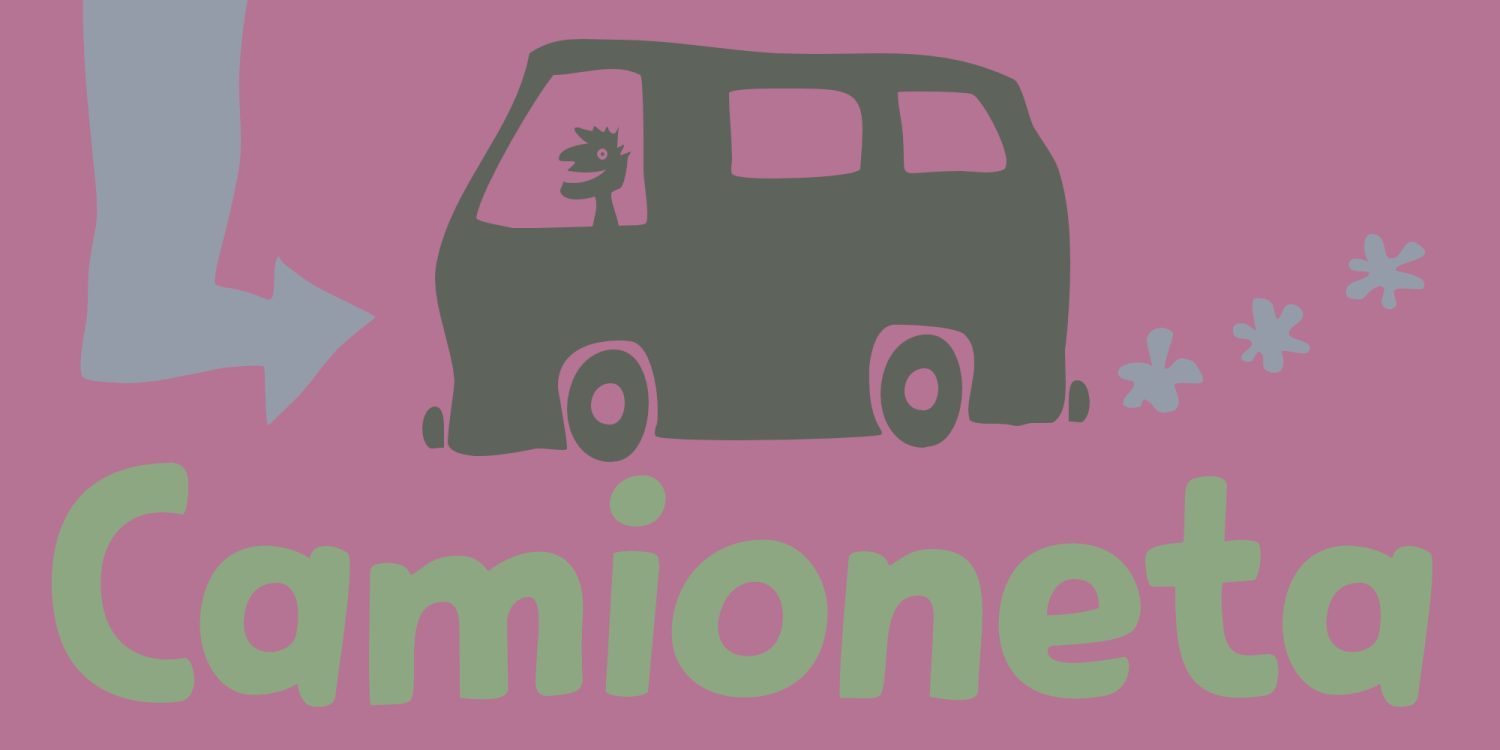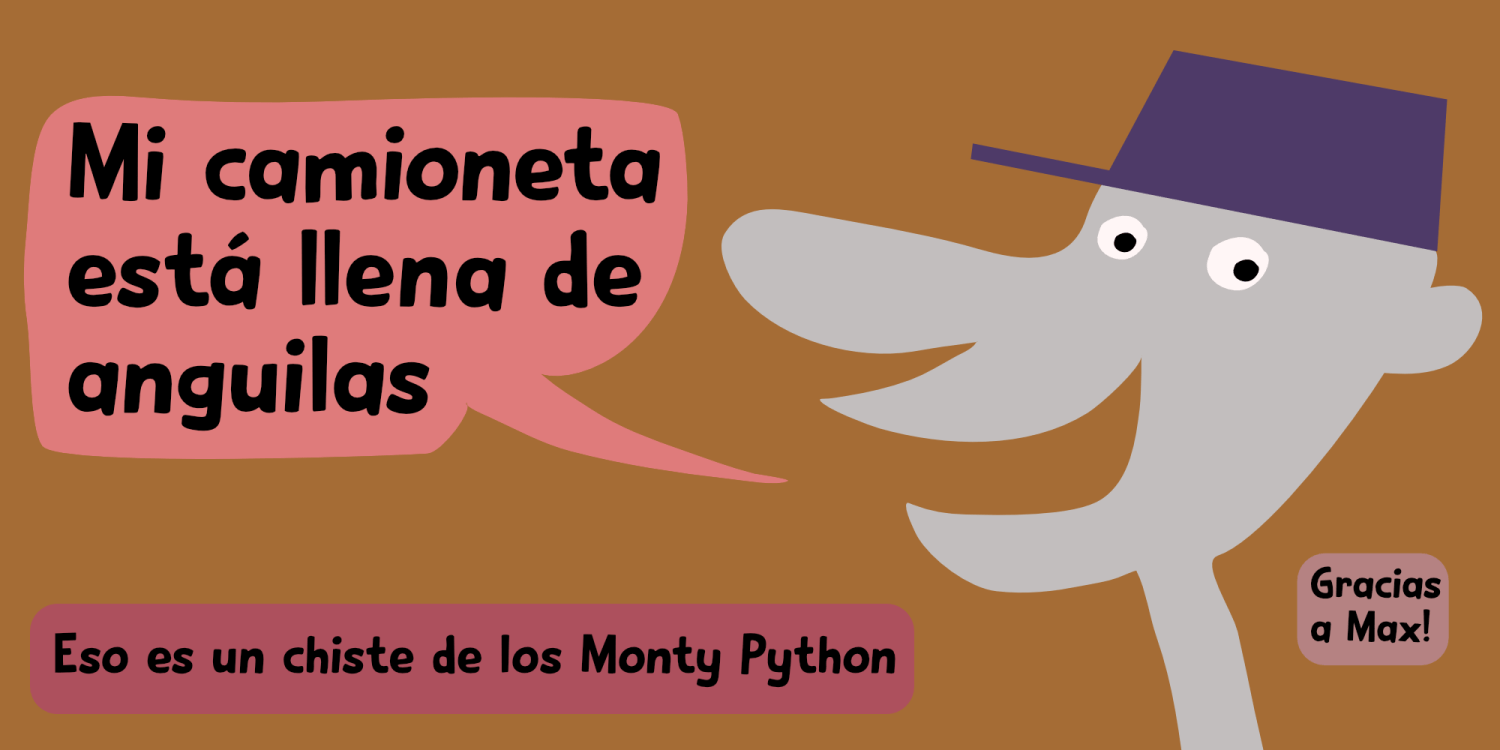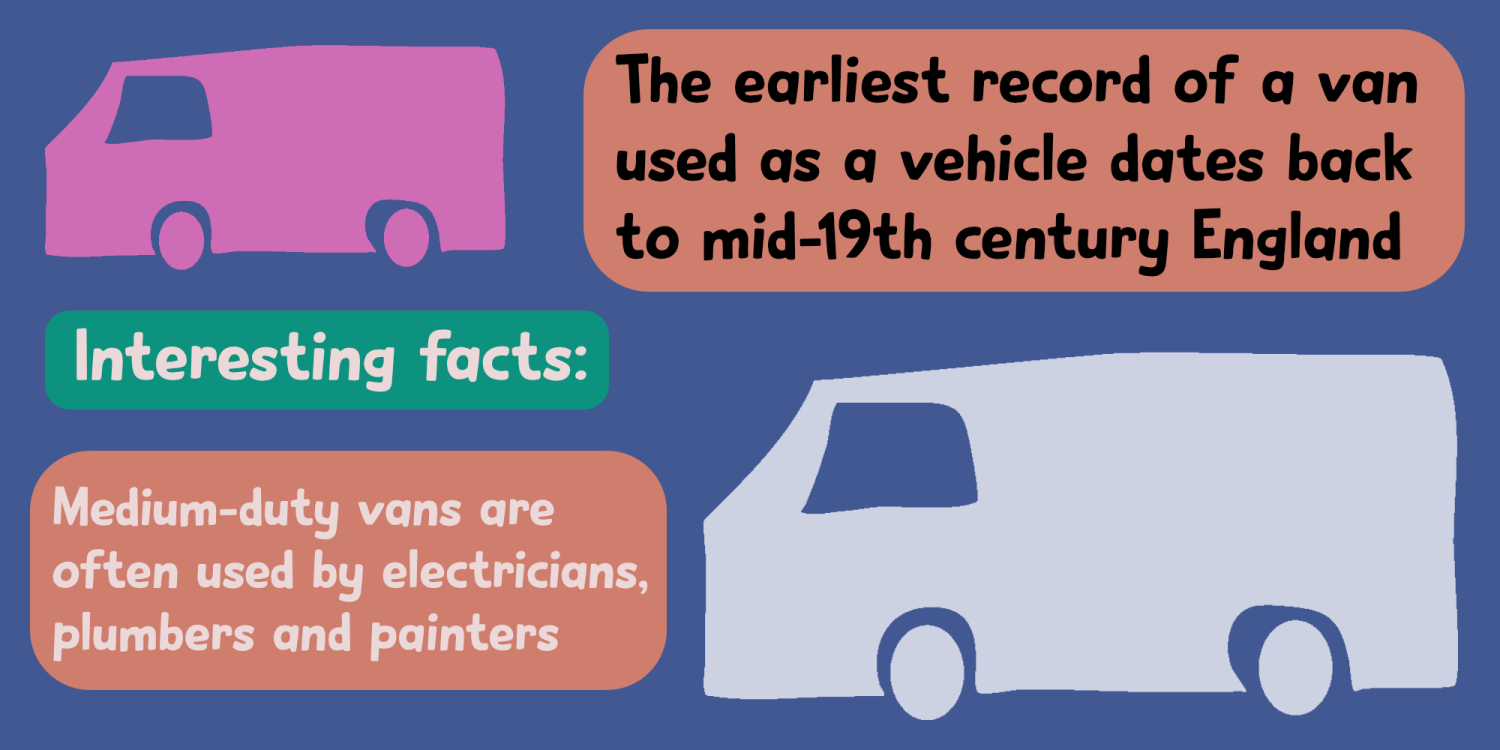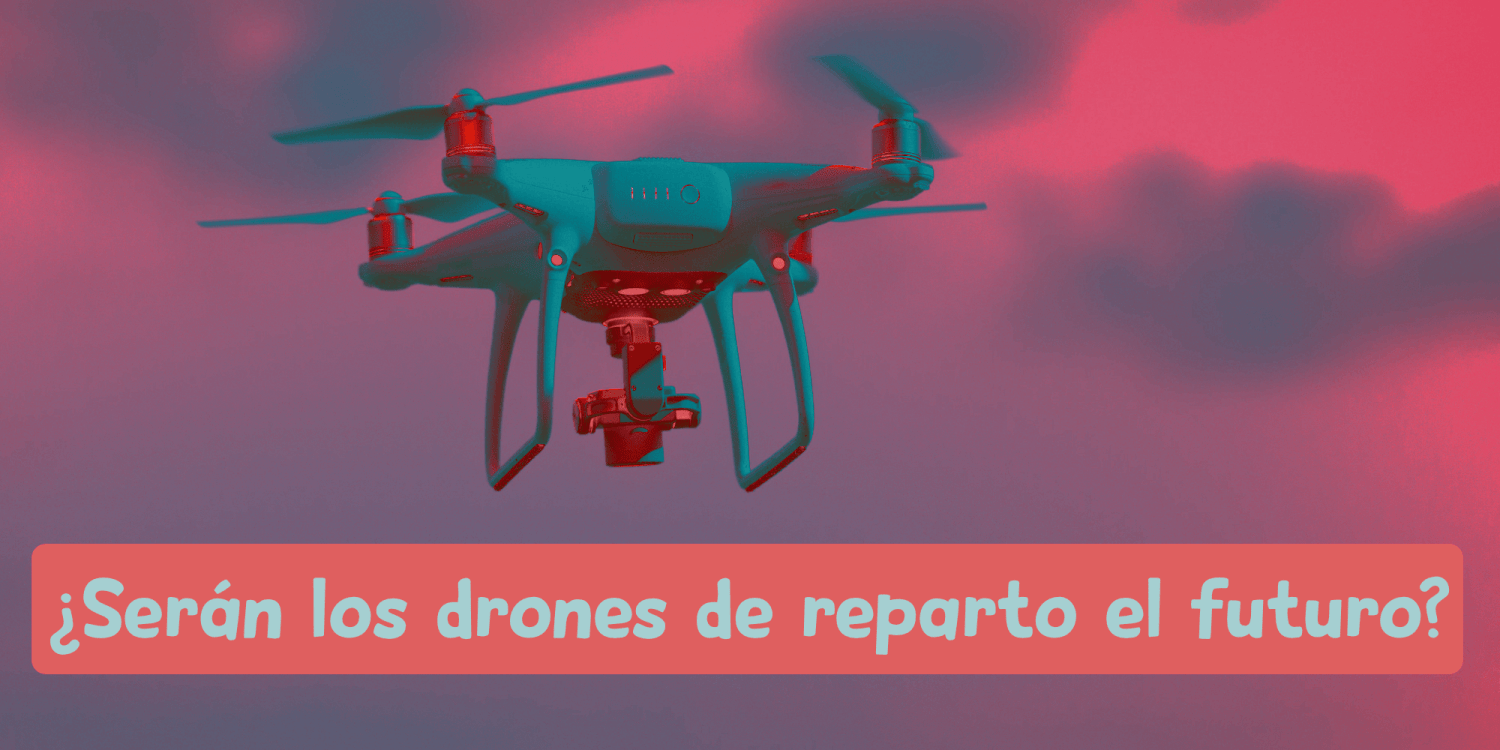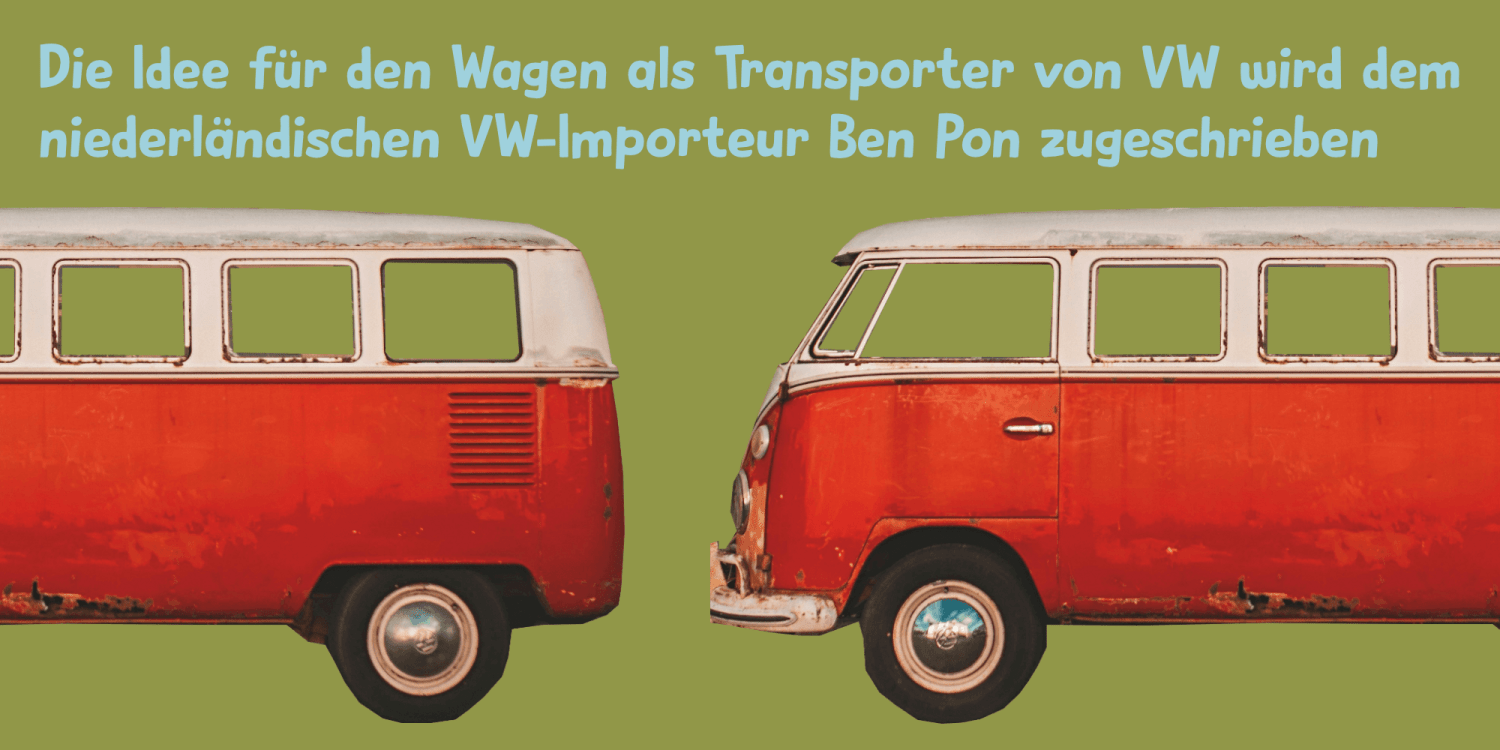
Camioneta
A ‘Camioneta’ is a van in Spanish. I live in a hamlet without shops or other facilities, so I order a lot of stuff online. In fact, a lot of people from my village order stuff online, so it usually is quite busy with delivery vans.
Camioneta is a cute cartoonish font. It is friendly, rounded and wobbly, making it ideal for product packaging and book covers. Comes with extensive language support.